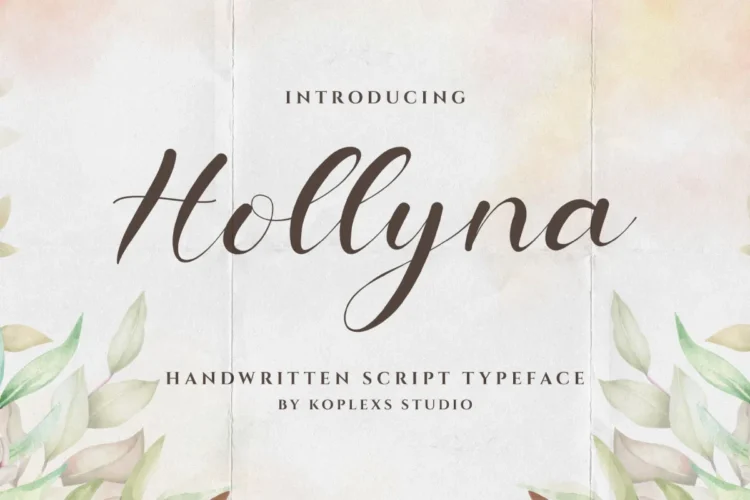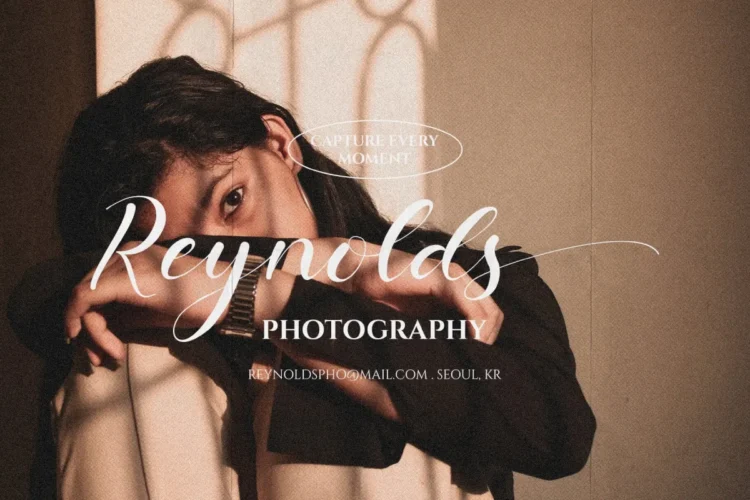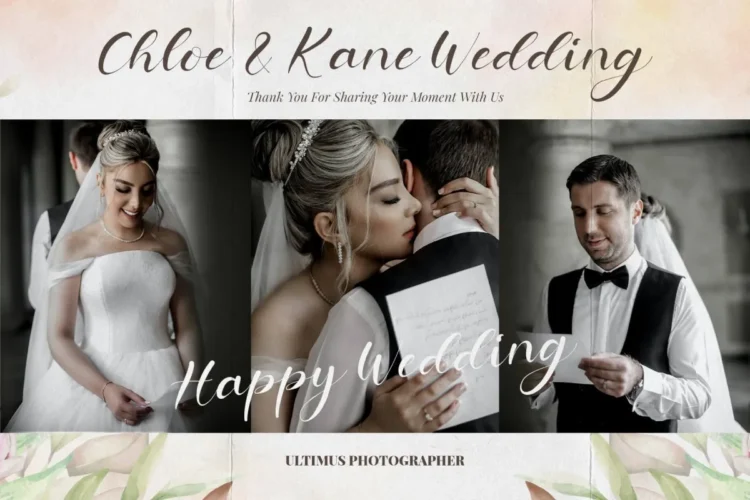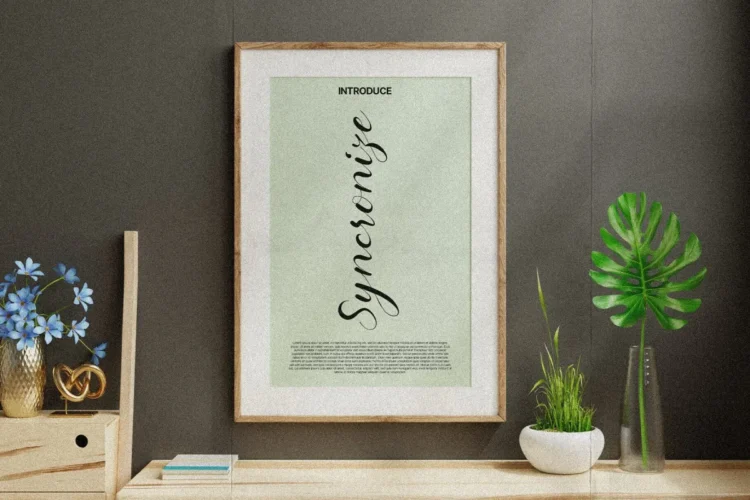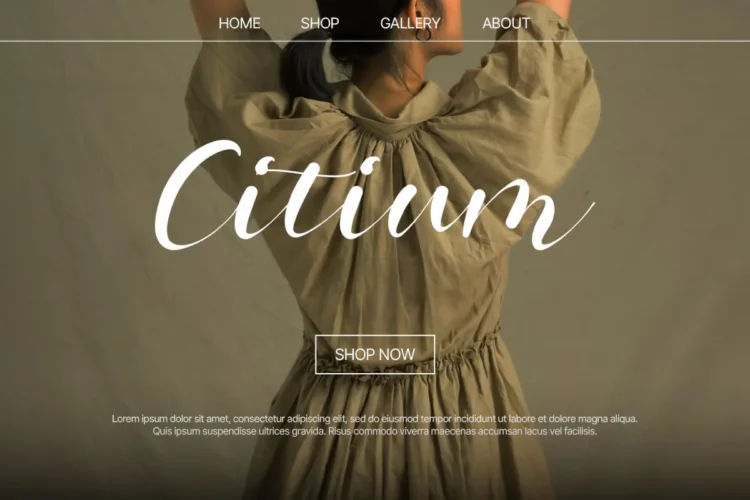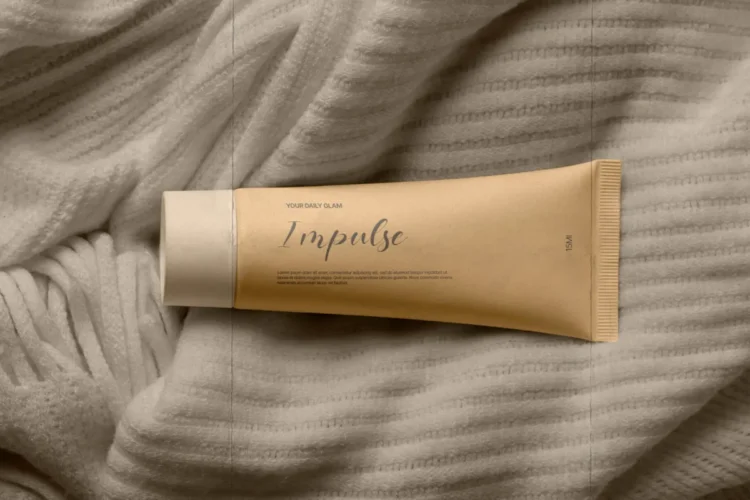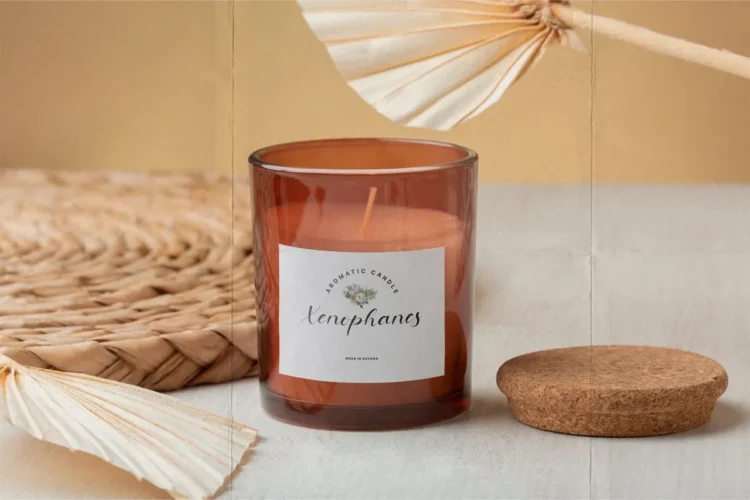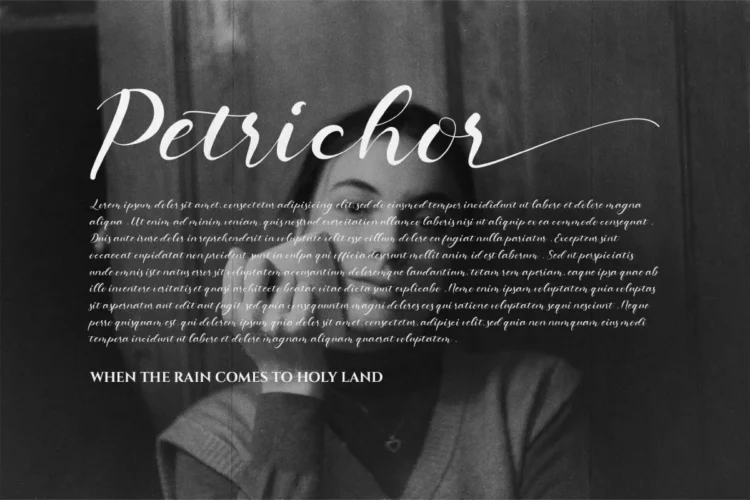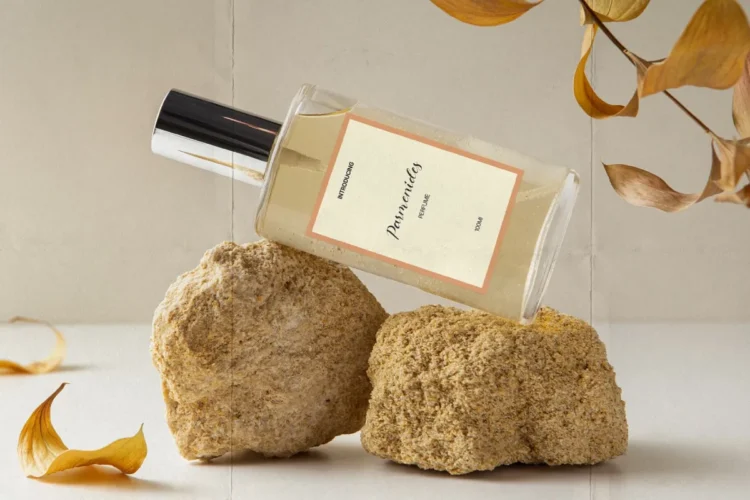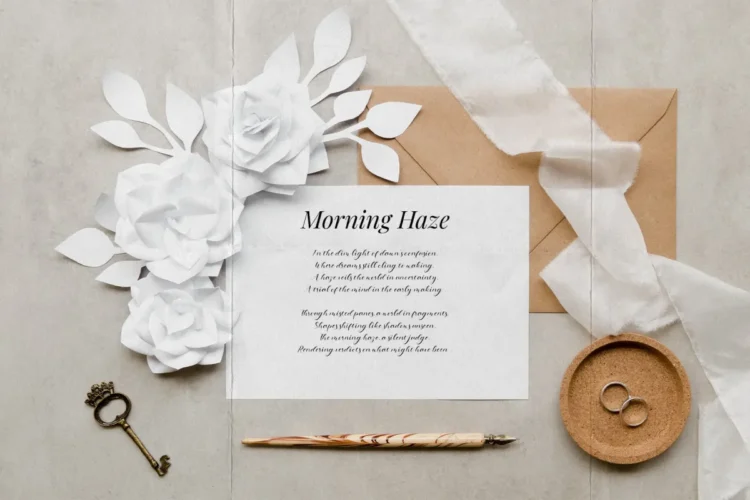
Hollyna Font – Elegant Handwritten Script Typeface for Branding & Wedding Design
Hollyna Font is an exquisite handwritten script typeface created by Koplexs Studio, combining the timeless beauty of modern calligraphy with the warmth of natural handwriting.
Each letter is carefully drawn to bring out elegance, sophistication, and emotional connection, making this font a perfect match for designers who want their projects to speak with grace and personality.
With a smooth flow, balanced curves, and charming Alternates, Hollyna Font gives a luxurious yet approachable impression. Whether you’re crafting an elegant wedding invitation or building a high-end brand identity, Hollyna ensures your text stands out beautifully.
Hollyna Font radiates soft romantic charm combined with luxury sophistication. Its gentle strokes and natural handwritten rhythm make it perfect for designs that need a personal yet professional aesthetic. The subtle contrast and extended letterforms express creativity and emotional warmth perfect for elegant and heartfelt communication.
Hollyna Font is versatile and works beautifully for :
- 💍 Wedding Designs: Invitations, save the date, thank-you cards, and name signage.
- 👑 Branding & Logos: Boutique brands, cosmetics, fashion labels, or luxury businesses.
- 📸 Photography & Portfolio: Watermarks, photo captions, and studio branding.
- 🕯️ Product Packaging: Perfume bottles, skincare labels, candles, and handmade goods.
- 💌 Editorial & Print Design: Magazines, poetry layouts, or greeting cards.
- 💻 Digital Creations: Social media posts, blog headers, and website banners.
- 🎁 Gift Cards & Invitations: Elegant stationery for personal or corporate events.
💎 Why You’ll Love Hollyna Font
- Timeless Elegance: Crafted to balance luxury and approachability.
- High Readability: Beautiful script that remains clear and professional.
- Expressive Details: Every curve and ligature adds emotional storytelling.
- Versatile Aesthetic: Ideal for both minimalist and ornamental compositions.